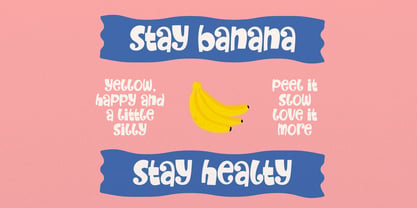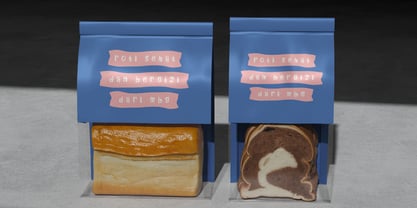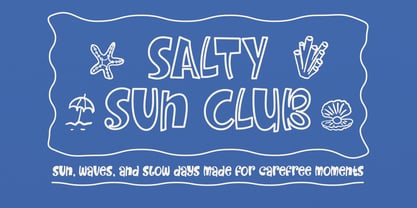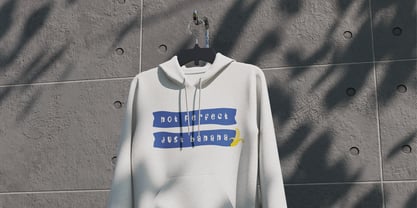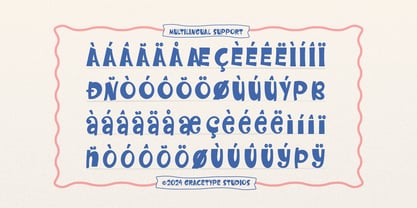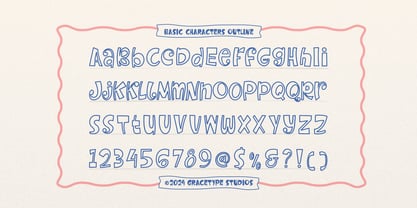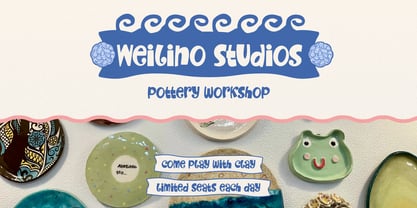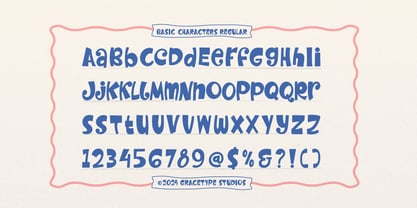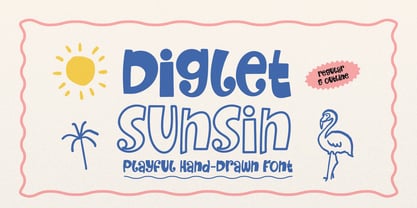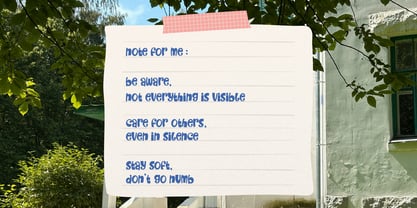
Diglet Sunsin Outline
Diglet Sunsin | Playful Hand Drawn Font, from Gracetypestudio, suitable for any projects such as: logos, branding projects, homeware designs, product packaging, mugs, quotes, posters, shopping bags, t-shirts, book covers, name card, invitation cards, greeting cards, label, photography, watermark, special events, and all your other lovely projects that need a Hand Drawn taste.